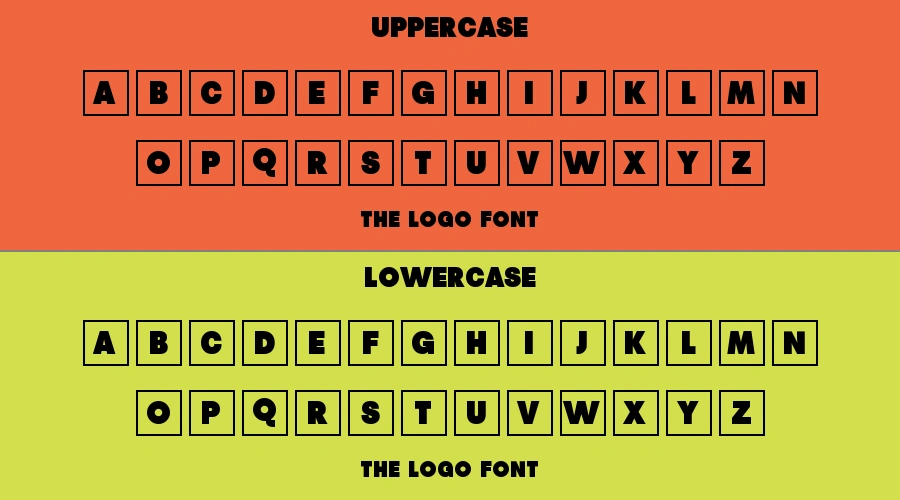
About The Logo Font
Designed with precision, The Logo Font merges subtle details with adaptability in every character. This versatility makes it particularly effective for brand identities, where durability and classic beauty directly impact communication quality. Each letterform demonstrates meticulous craftsmanship.
Technical excellence shines through elements like calculated proportions and swash characters, enhancing typographic versatility. In footnotes settings, The Logo Font proves its worth through superior readability. The thoughtful execution of spine curvature and standards alignment ensures professional results.